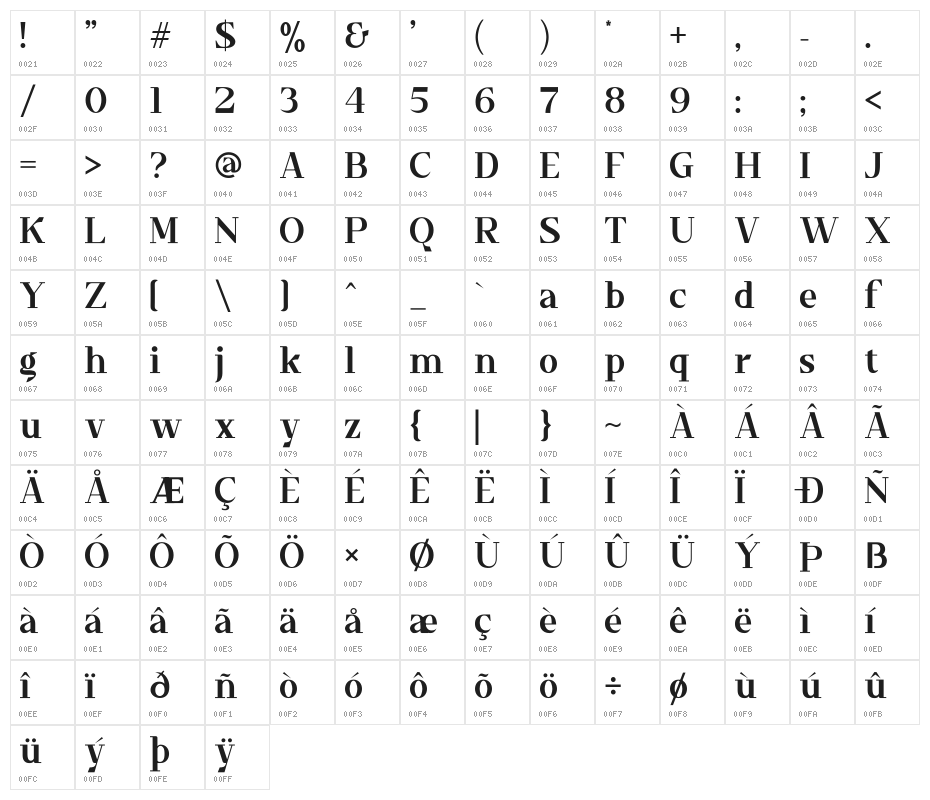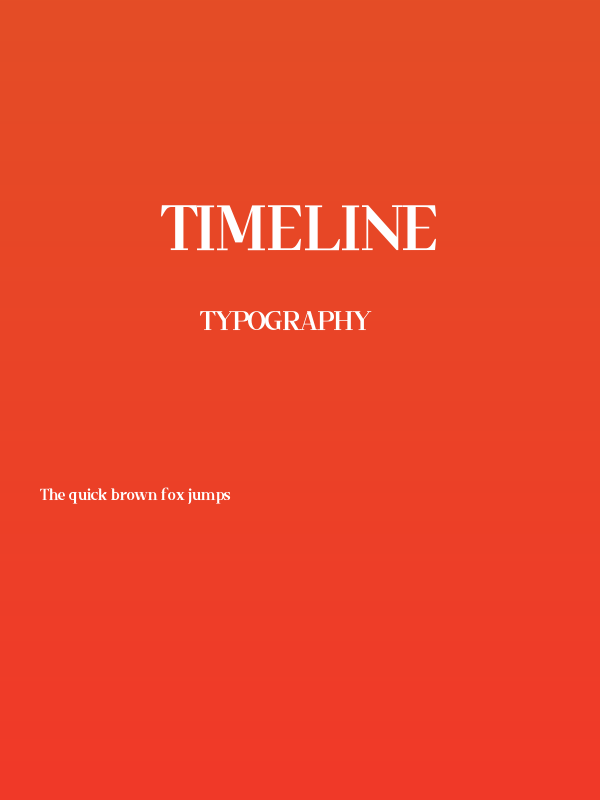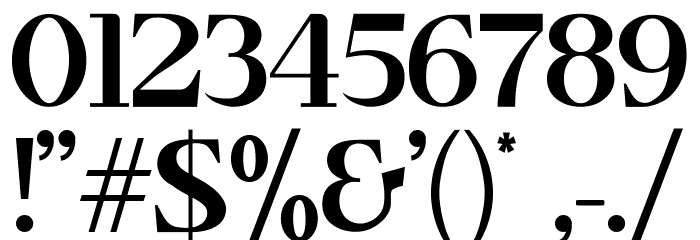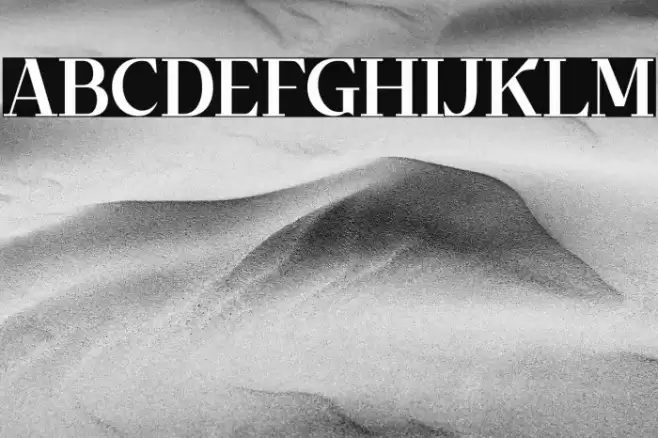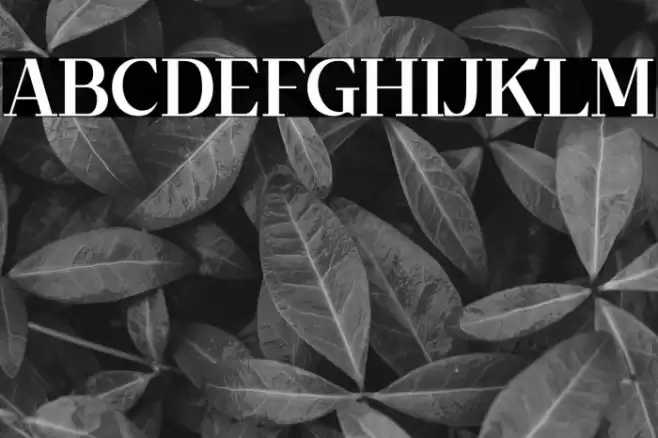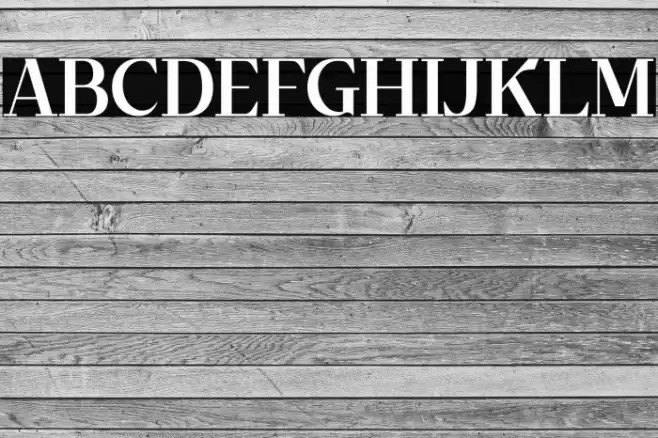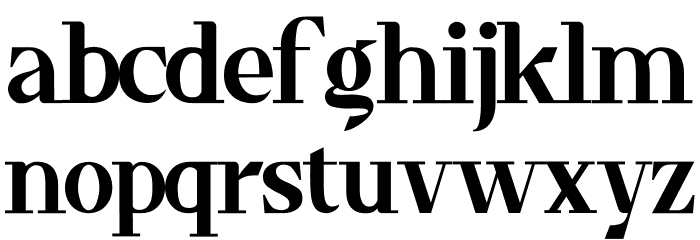
Timeline Font
Timeline Description
This font exhibits a classic serif style with elegant and refined strokes. The uppercase letters are bold and commanding, while the lowercase letters maintain a balanced and harmonious appearance. The numerals are distinct and clear, making them suitable for both display and text purposes. Special characters are designed with a consistent style, ensuring a cohesive look across all glyphs. The font's overall design is sophisticated, making it ideal for projects that require a touch of elegance and tradition.
| Proposed Projects | Ideal for editorial design, book covers, formal invitations, and branding that requires a traditional and sophisticated look. |